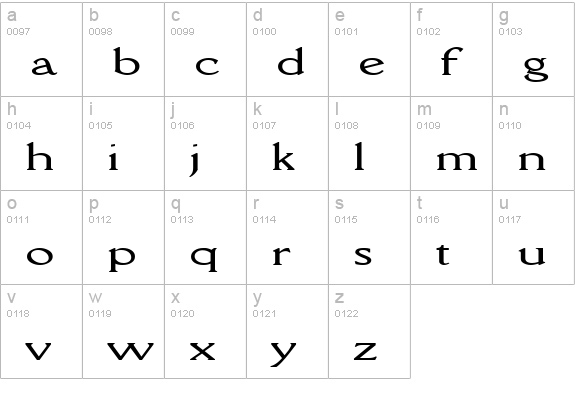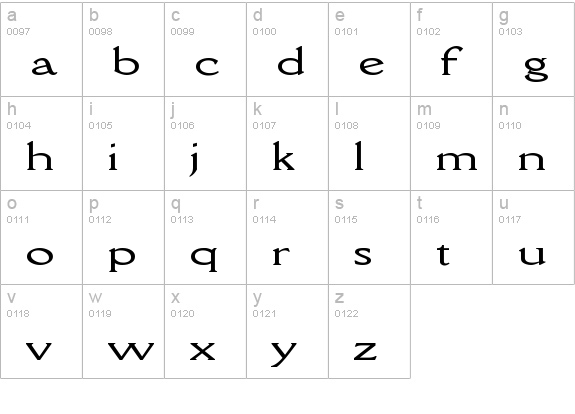
Rory Extended Normal is the standard, neutral, extended-width variant in the Rory typeface family \xE2\x80\x94 well suited to general body text, paragraphs, and standard typographic work.
Rory Extended Normal font is a versatile and modern typeface that combines sleek lines with a touch of elegance. Its extended characters provide a unique look that is perfect for headings, titles, and other design elements. This font is free to download at FontsMarket.com, making it accessible to designers and creatives looking to add a touch of sophistication to their projects. With its clean and contemporary style, Rory Extended Normal font is sure to make a statement in any design layout.